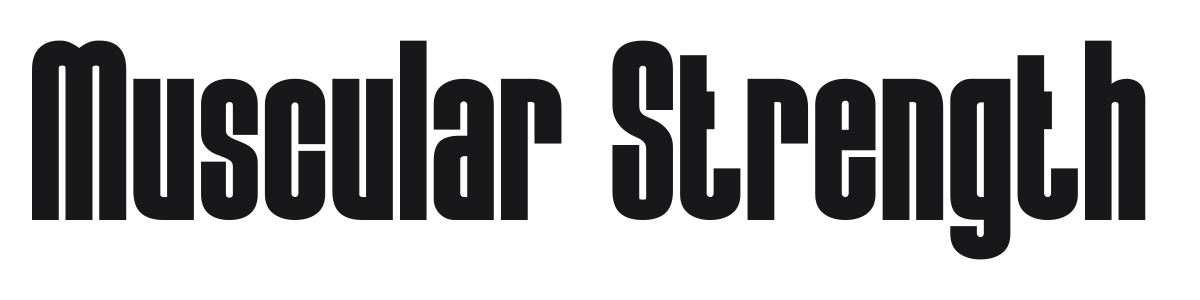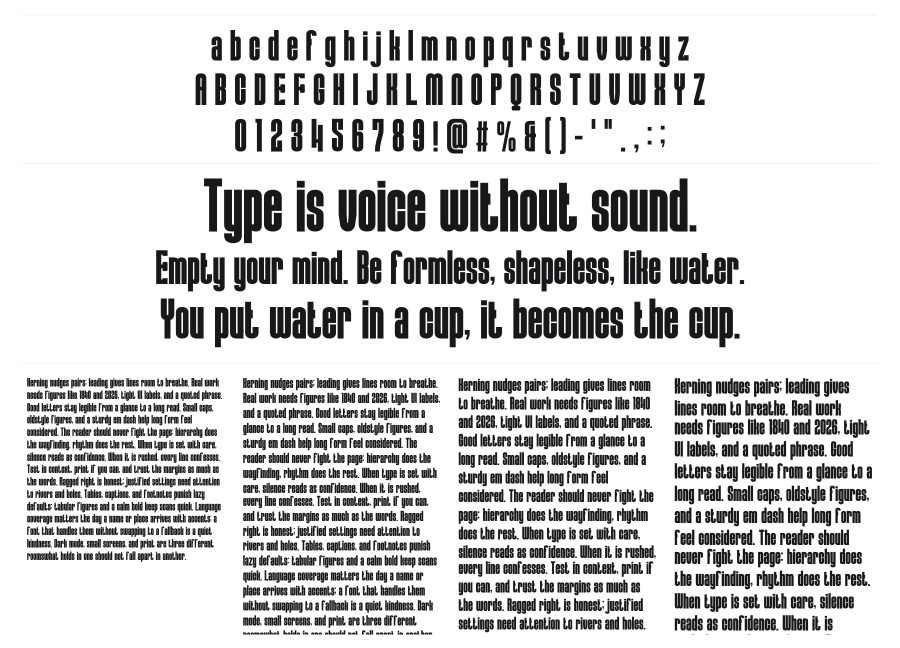
Muscular Strength
Muscular Strength is an ultra-condensed heavy sans-serif with a dense, imposing presence that lives up to its name. The letters pack tightly together with subtle rounded corners and near-monoweight strokes, calling back to 1970s sports and fitness typography. It dominates at large sizes and suits anywhere raw visual weight is the goal.